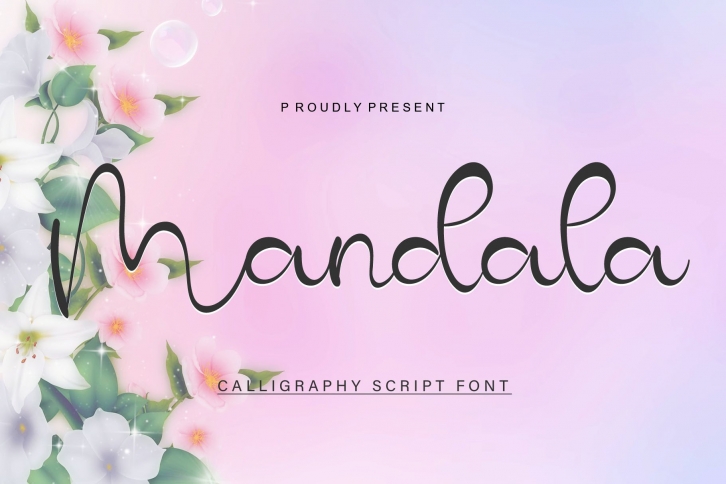
Mandala is a trendy script font that emanates confidence and versatility. Its stylish alternates and ligatures make this font the perfect match for any project.